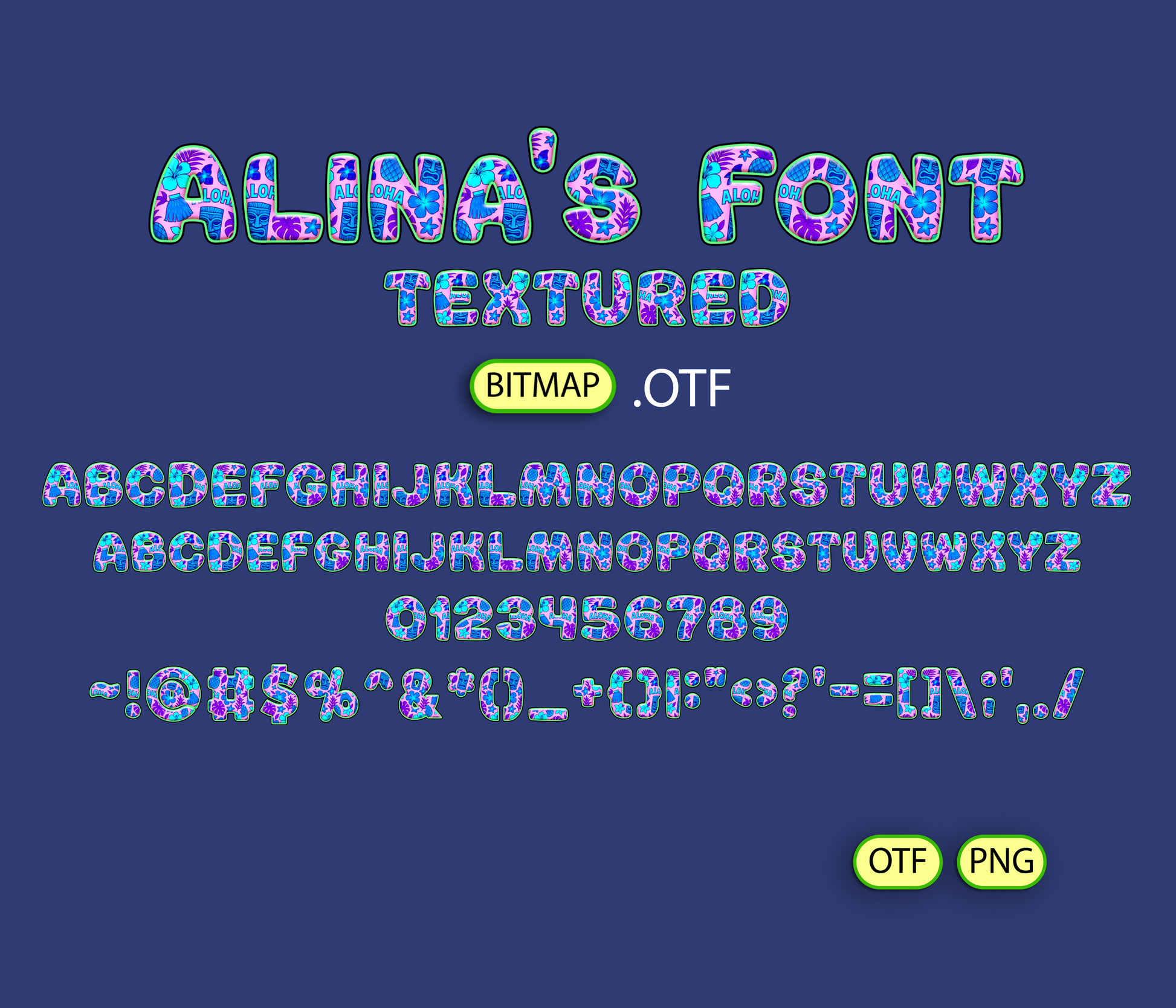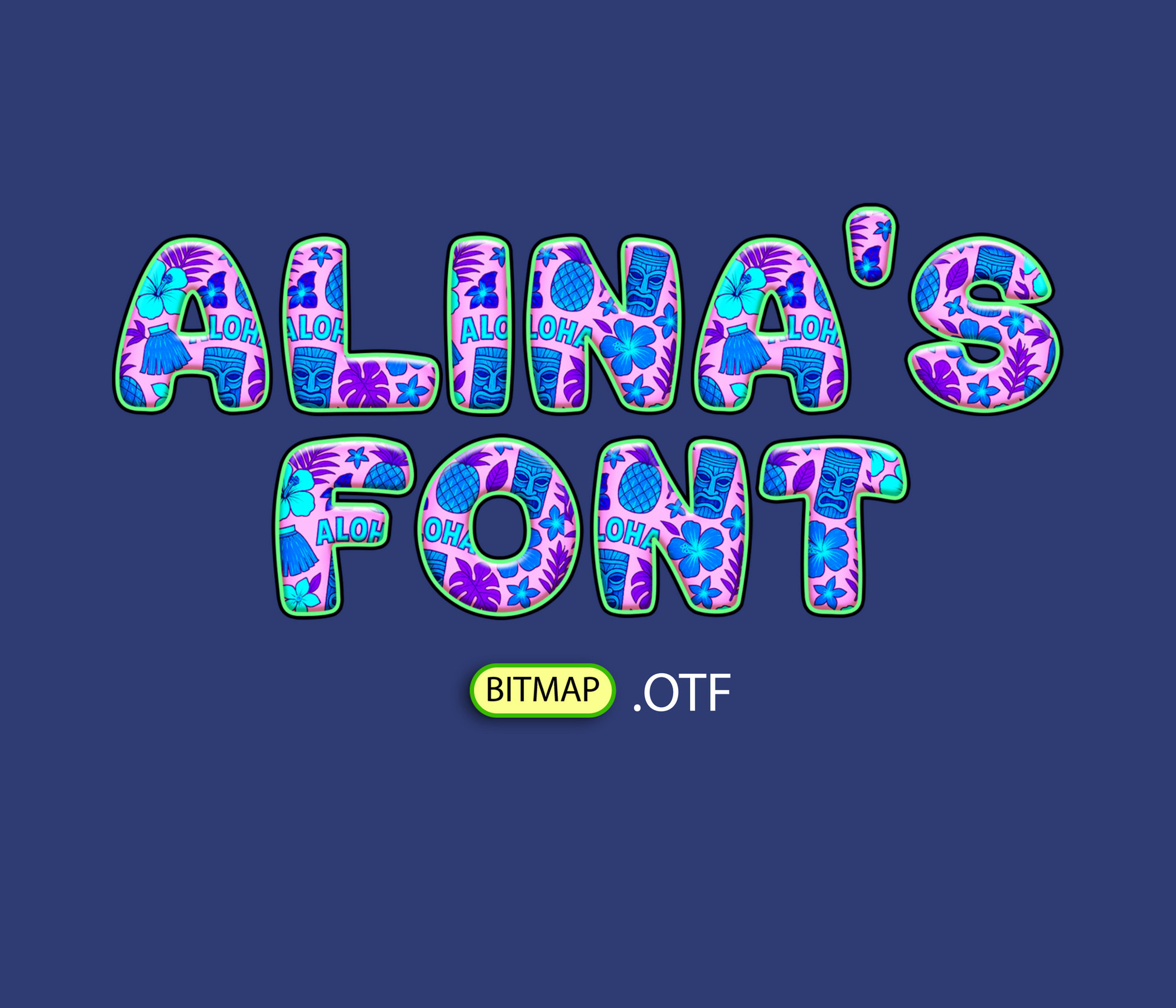
Tropical Paradise Hawaii Typeface Textured
Immerse yourself in the enchanting world of island paradise with our Tropical Hawaii Typeface, embodying the essence of swaying palm trees, ocean waves, and endless summer vibes. Perfect for resort businesses, travel agencies, surf shops, and creative professionals, this font brings the relaxed, sun-kissed spirit of Hawaiian beaches to your projects. Create stunning signage, tropical products, or digital content with the vibrant, laid-back energy of Polynesian culture and crystal-clear lagoons.
Our Tropical Hawaii Typeface features flowing, wave-inspired curves and relaxed characters reflecting the peaceful yet vibrant aesthetic of island life. Ideal for:
- Tourism Business: Create captivating logos, packaging, and promotional materials for beach resorts, luau organizers, and tropical restaurants
- Children's Design: Perfect for summer storybooks, beach party decorations, and learning materials that celebrate ocean adventures
- Digital Media: Enhance websites, blogs, and social media with tropical headers and graphics that express island serenity and adventure
- Educational Content: Add authentic character to Hawaiian materials, travel guides, and promotional materials for tropical destinations
- Personal Projects: Bring island charm to greeting cards, craft projects, and home decor inspired by the aesthetics of sunset beaches and tropical flowers
Our Tropical Hawaii Typeface includes textured and non-textured variants, ensuring compatibility with all software, including Canva. This feature allows easy incorporation into designs for users of all skill levels.